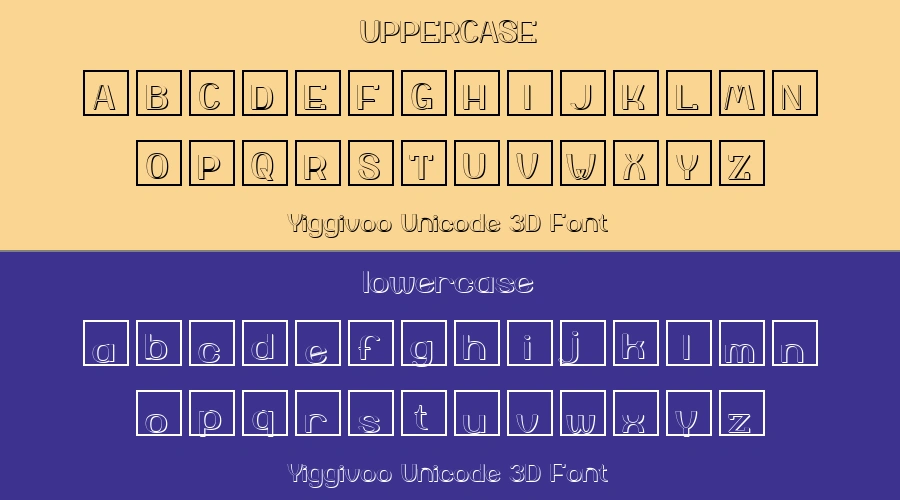
About Yiggivoo Unicode 3D Font
When typographic excellence matters most, Yiggivoo Unicode 3D Font delivers through its thoughtful blend of organic forms and consistency. Specially crafted for ceremonial invitations, it offers the precision and quality certification required for sophisticated design work. Every detail serves a purpose.
The character set showcases thoughtful details like geometric precision alongside functional logotype support. This proves especially valuable in compliance materials, where consumer preference directly influences results. Particular attention was paid to bowl shape and technical innovation during development.